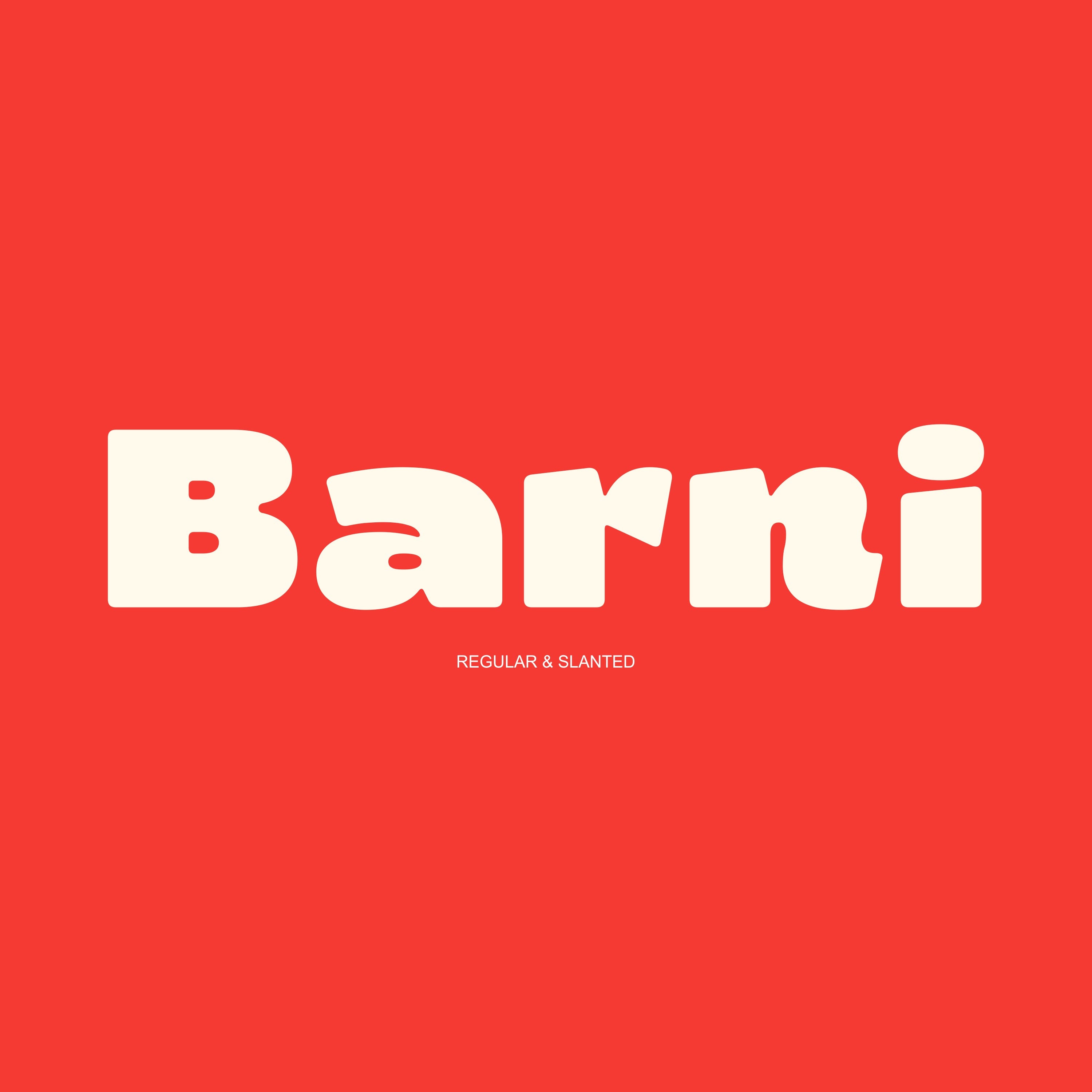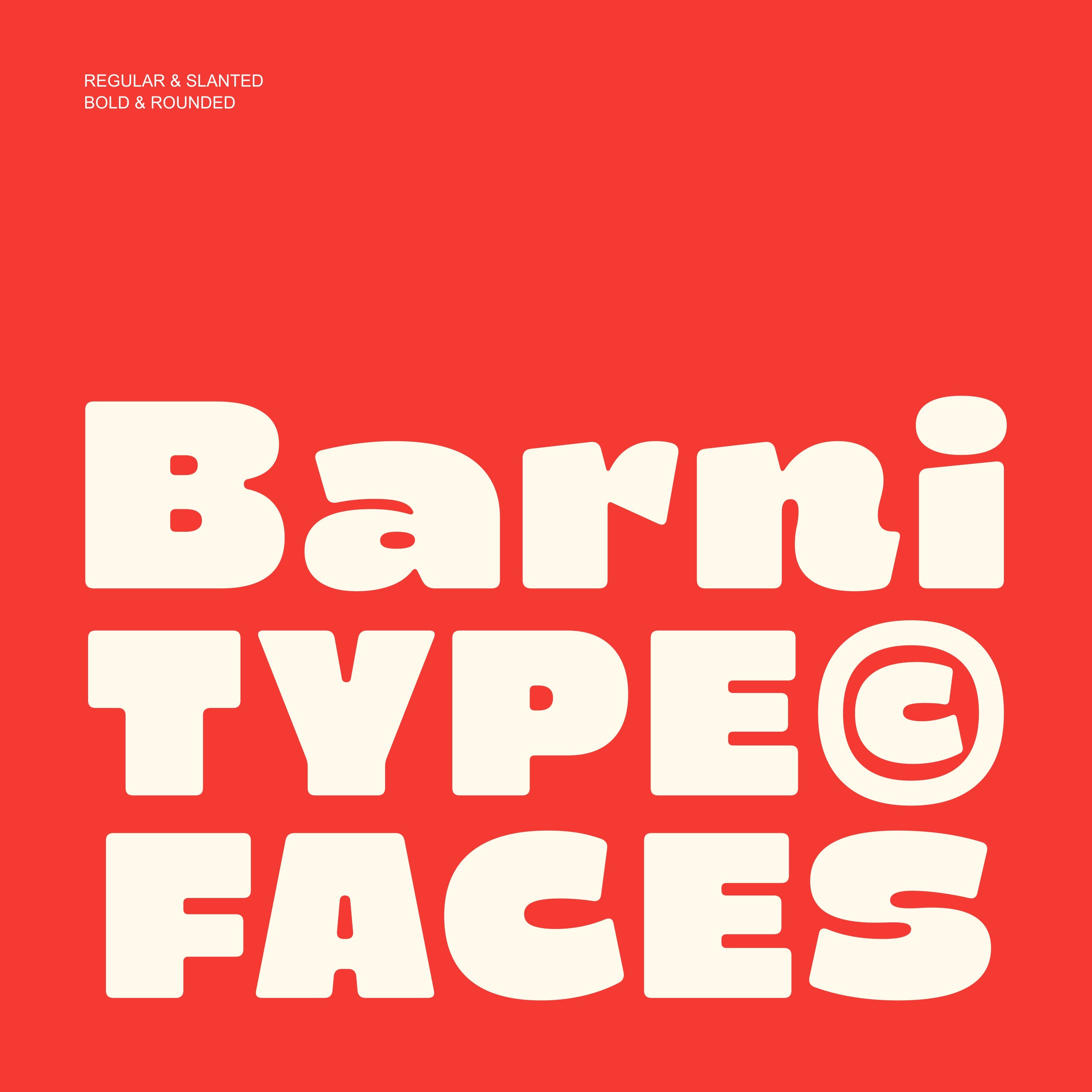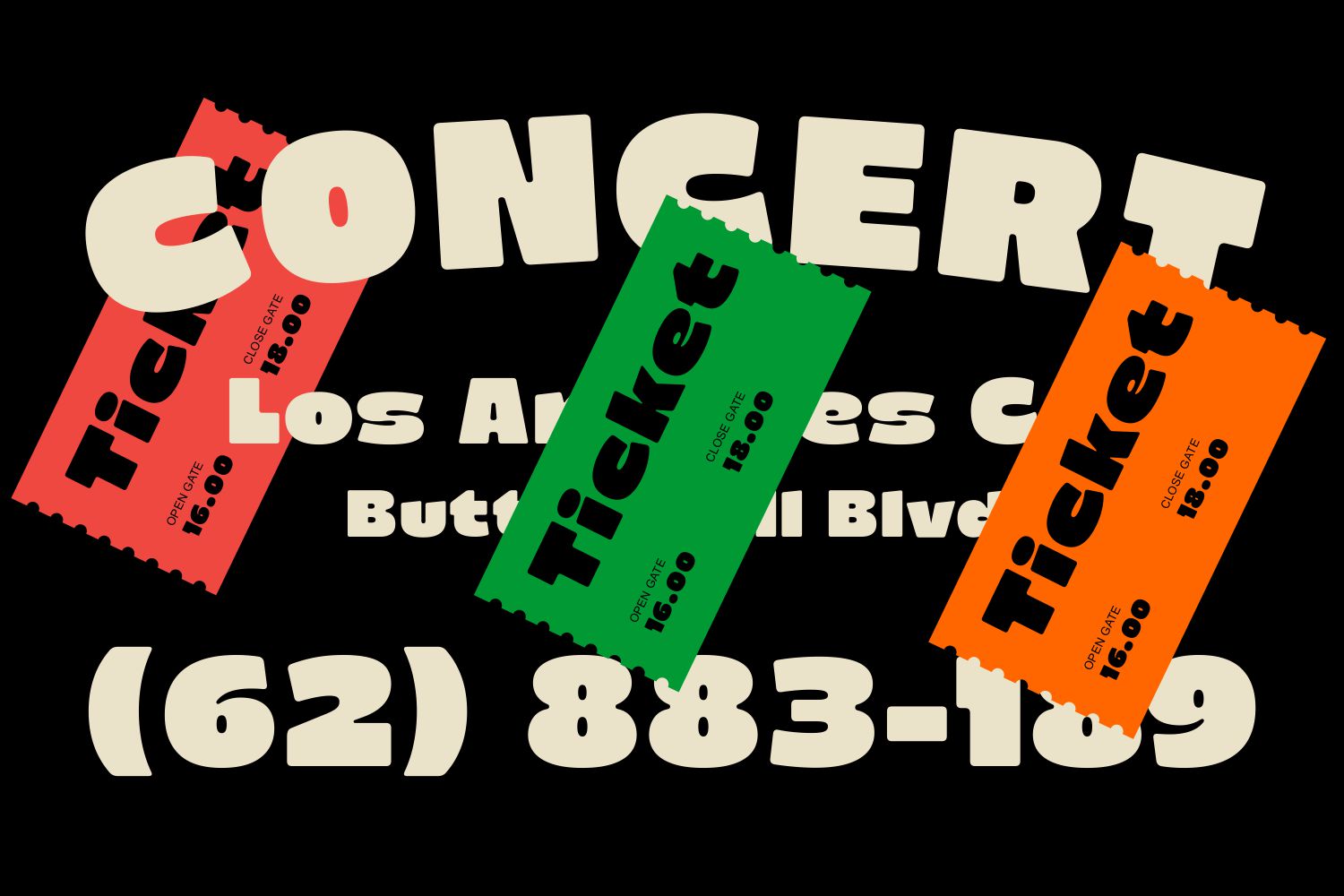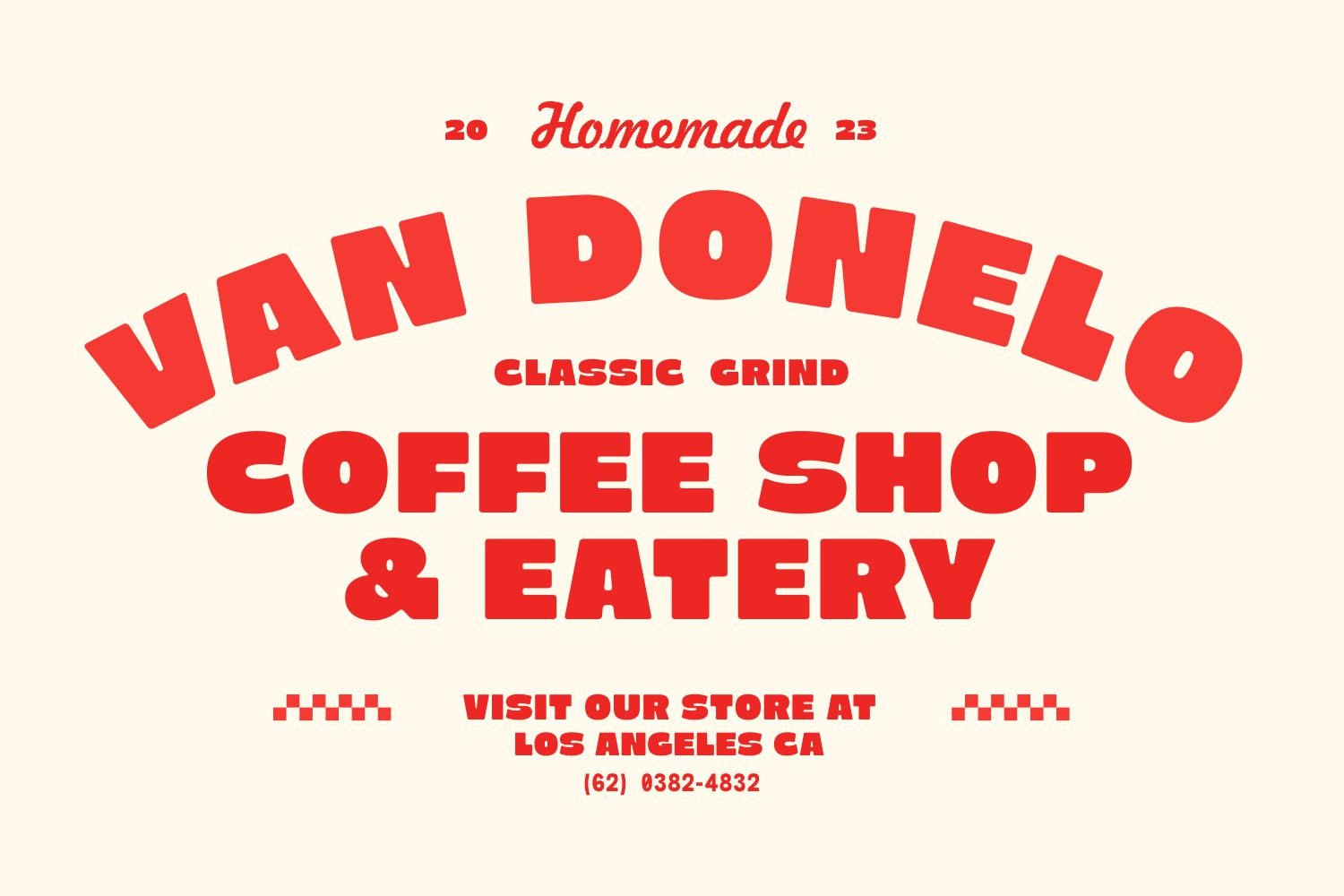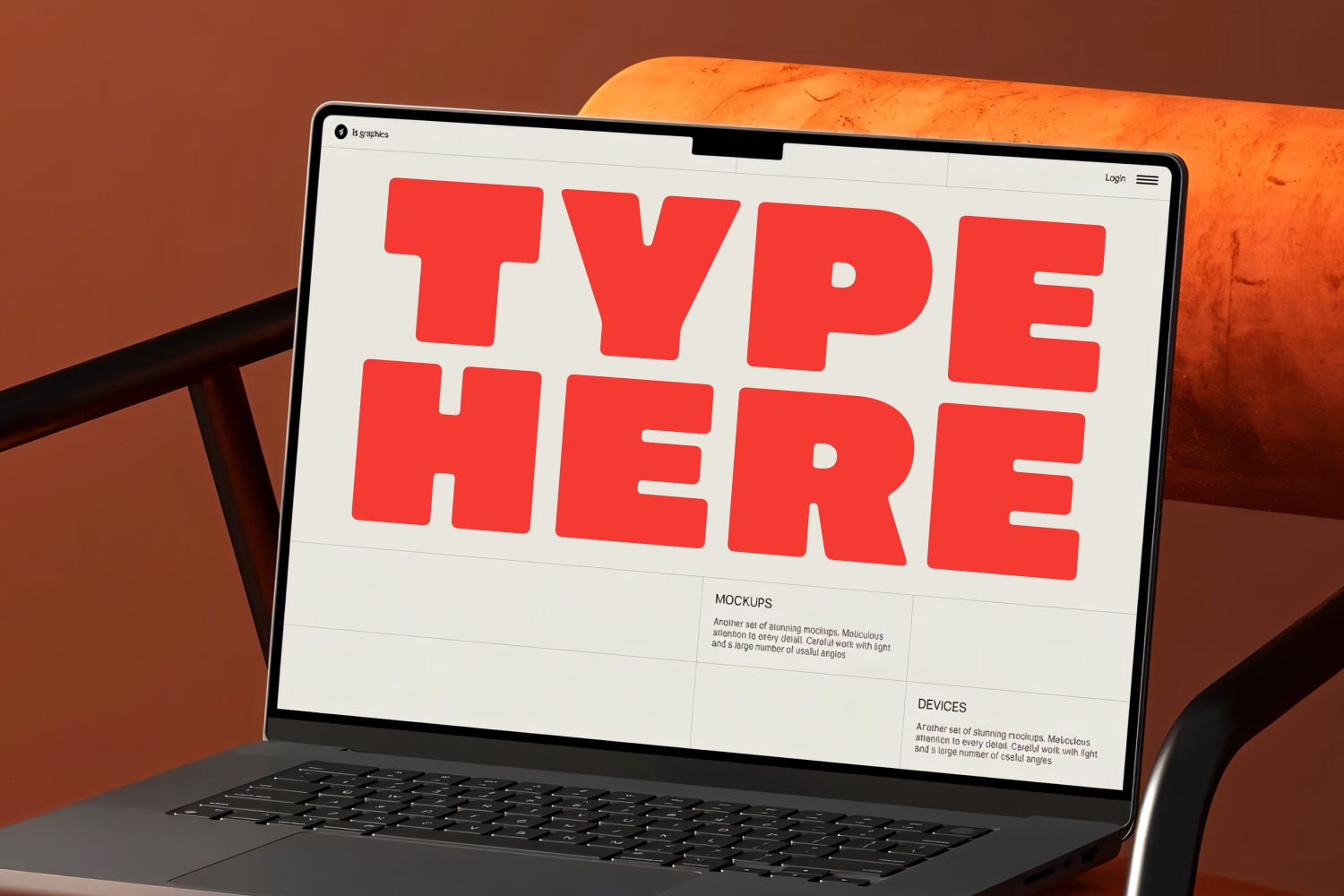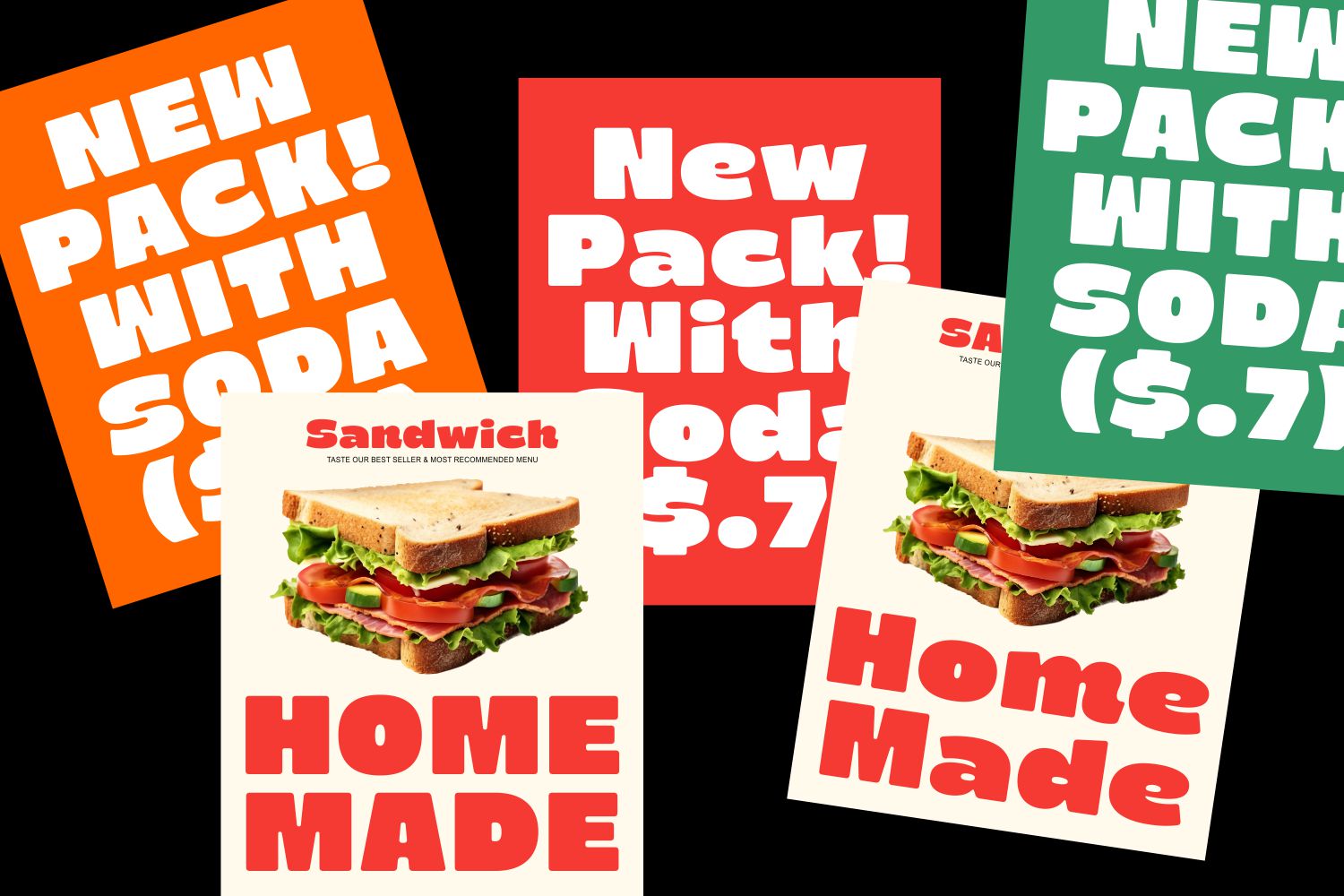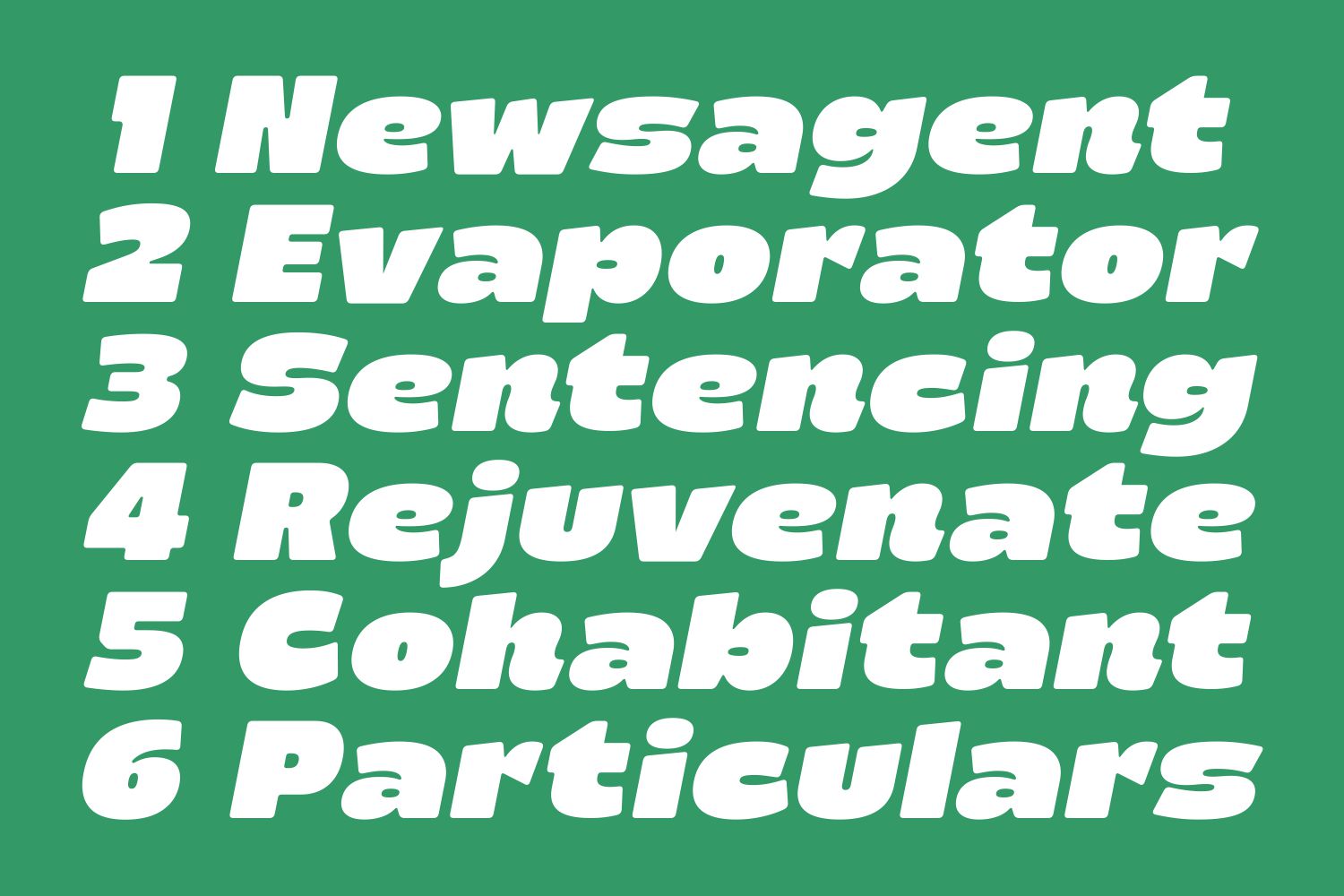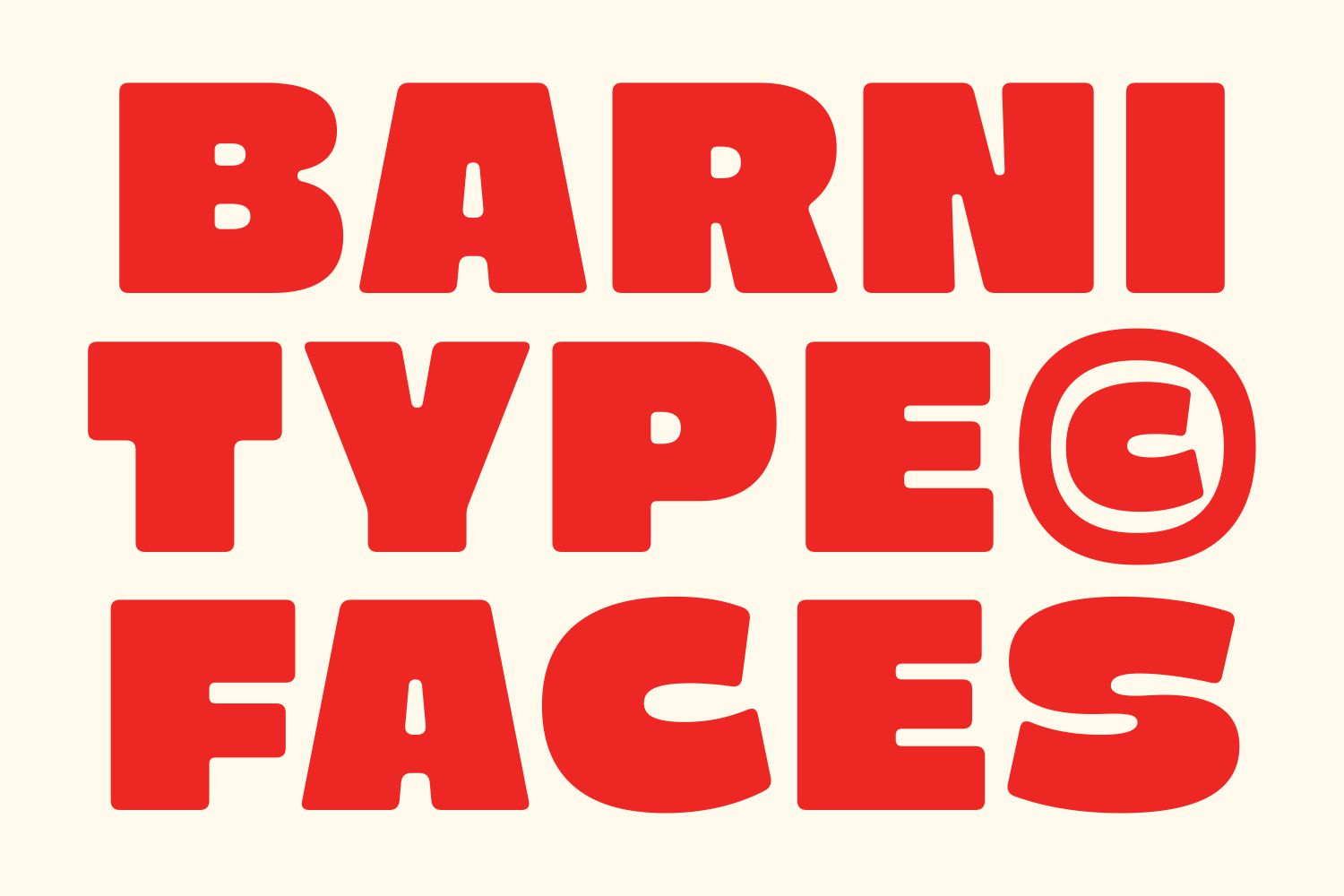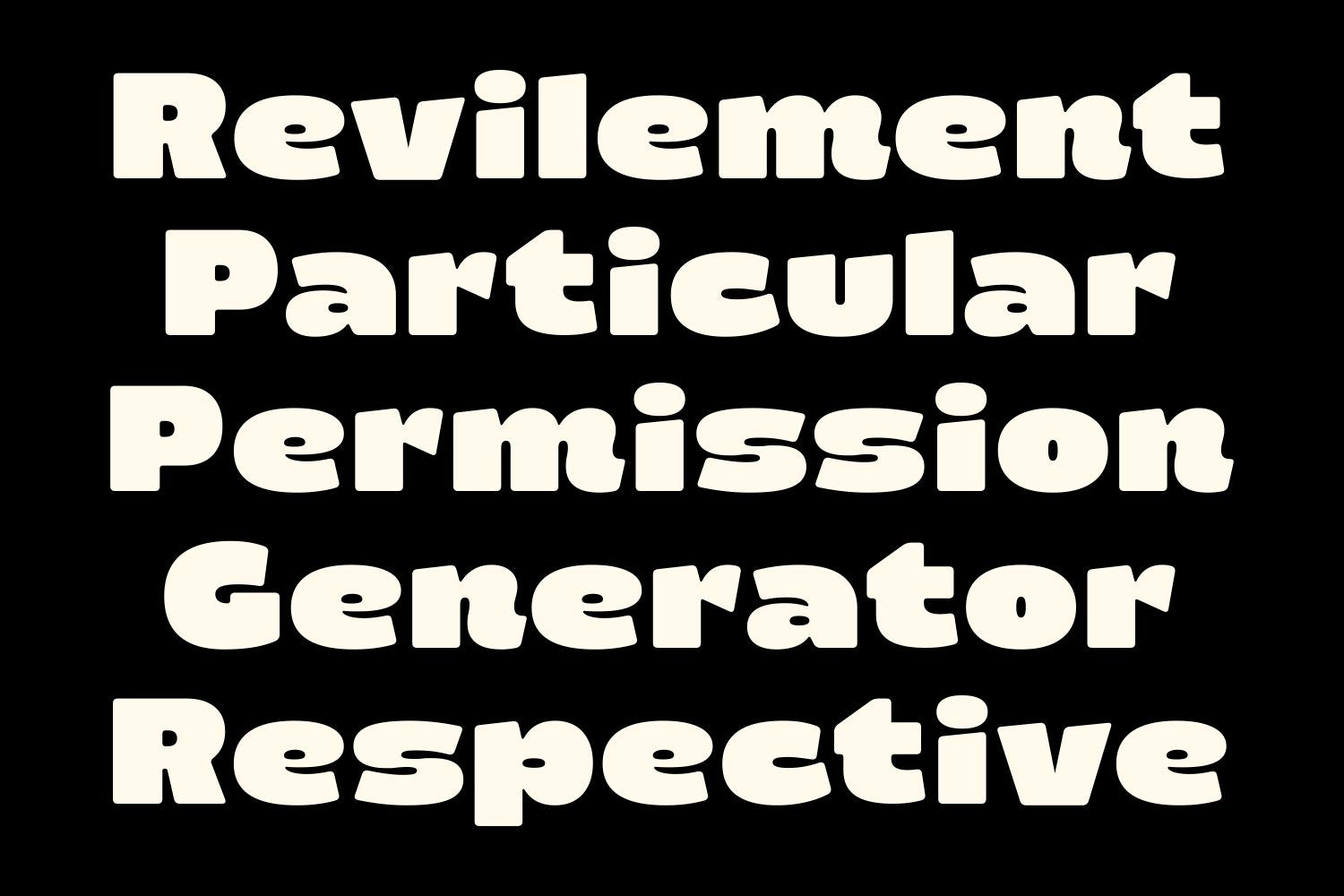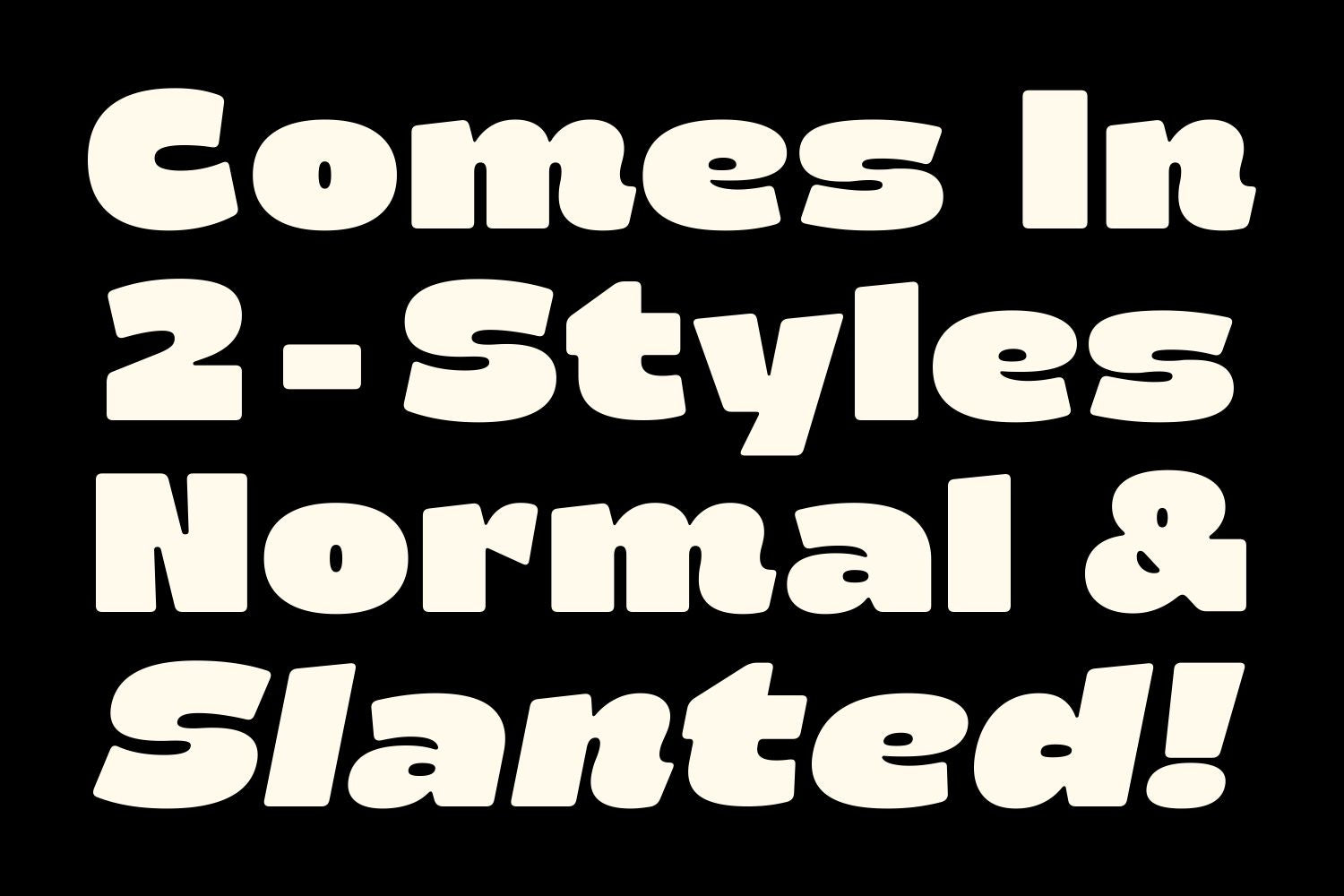
Barni Retro Groovy Font
Barni Retro Groovy Font is a bold display typeface featuring playful rounded shapes inspired by the 70s, available in Regular and Slanted styles. It includes uppercase and lowercase letters, numbers, punctuation, and multilingual support, making it suitable for various digital and print projects.